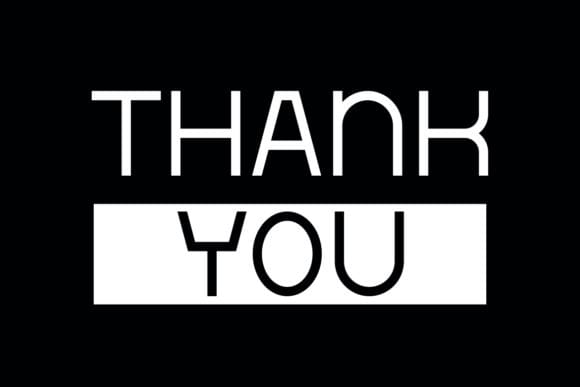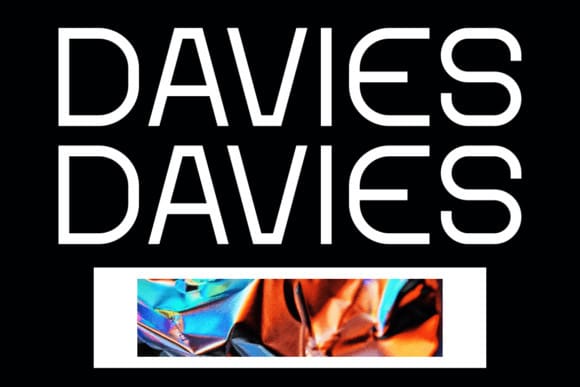
Davise Font
Davise Font is an authentic display futuristic font that is perfect for professional and product branding needs. This font is suitable for any branding project such as quotes, logos, blog headers, posters, ribbons, letters, invitations, stationery and more.